19 Creative Cute Bubble Fonts for 2026
Cute Bubble Fonts bring instant warmth, energy, and personality to creative projects. This collection ranges from soft, rounded display styles and sweet decorative designs to retro-inspired, hand-drawn, and graffiti-influenced lettering. Whether you are creating children’s graphics, stickers, posters, social media content, packaging, invitations, logos, or playful merchandise, these fonts offer expressive options for making headlines and short messages stand out.
Playful Cute Bubble Fonts
These rounded, friendly styles use bold, bubbly construction to create approachable display lettering for children’s designs, stickers, posters, branding, and cheerful social graphics.
Baby Gemoy Font
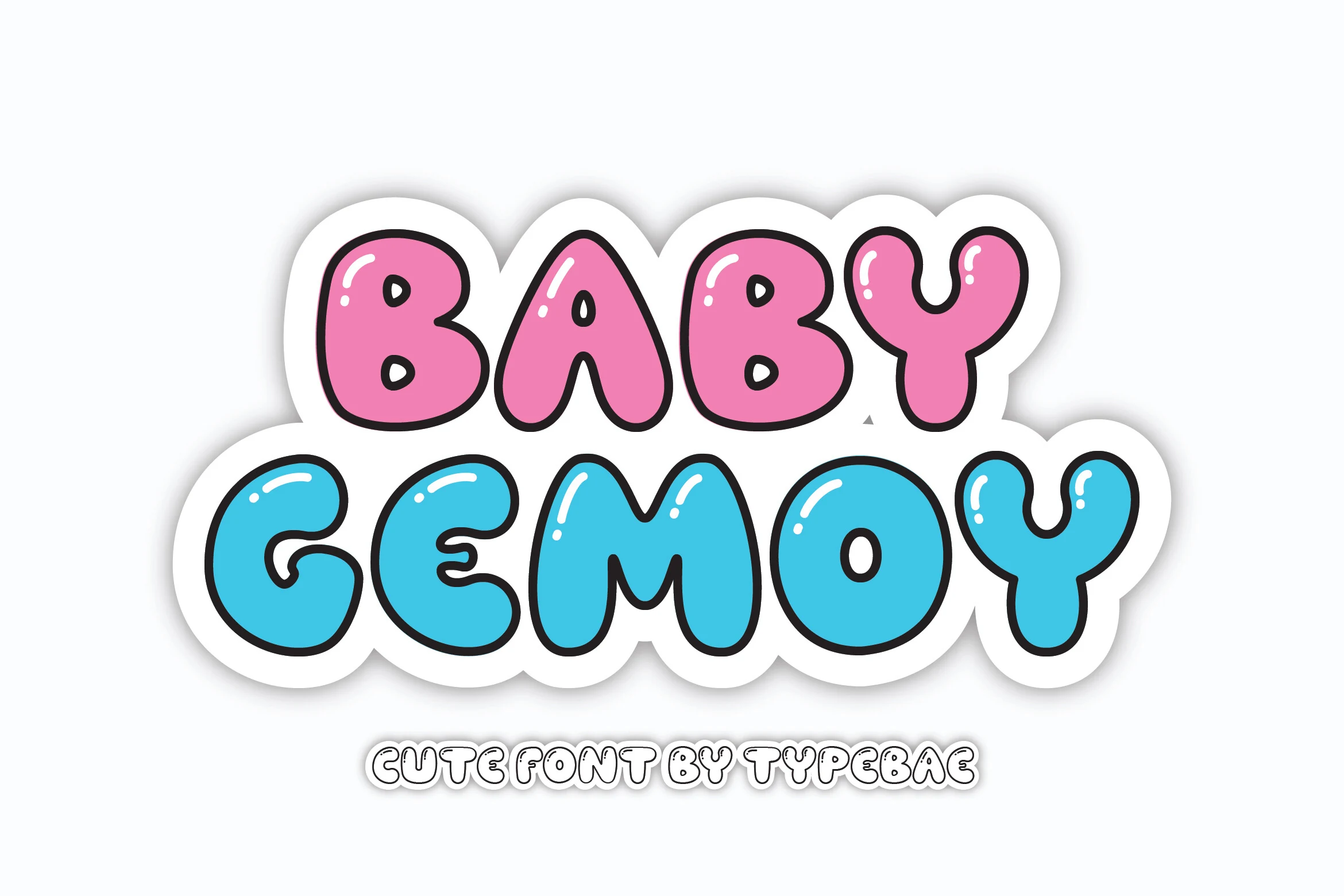
Best For: playful designs, children’s designs, stickers
Baby Gemoy uses thick, monoline strokes and rounded, enclosed counters to create a soft bubble shape with a friendly cartoon feel. The bold proportions stay clear at display sizes, making it a lively choice among Cute Bubble Fonts for cheerful lettering.
Its prominent surface highlights add dimension to short words and compact phrases, while the six included styles offer room to vary the look. Keep tracking slightly open and use strong background contrast, since the heavy forms lose clarity when reduced too far.
Bubbly Humble Font
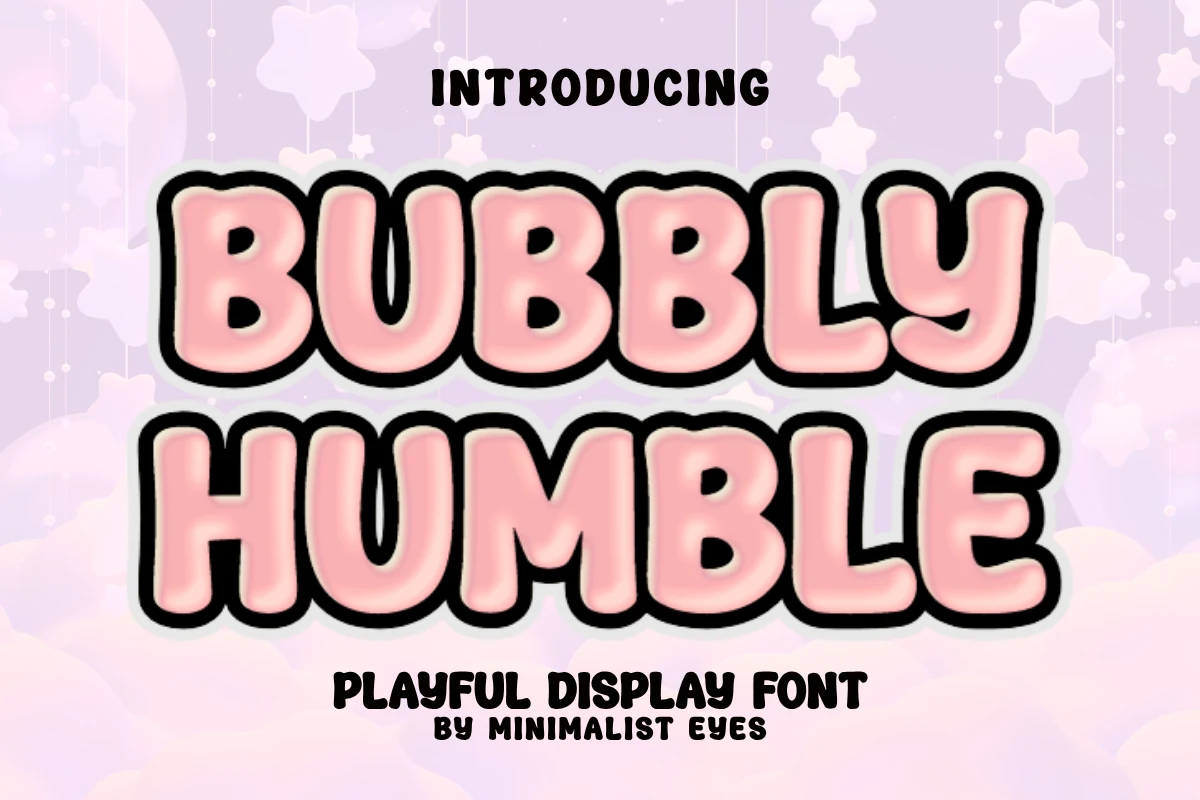
Best For: children’s designs, cute designs, invitations, merch design
Bubbly Humble uses thick, monolinear uppercase letters with inflated, rounded forms and no sharp corners or serifs. Its soft contours and even rhythm give Cute Bubble Fonts a cheerful, youthful presence suited to playful titles and short messages.
The generous shapes stay clear at display sizes, while their puffiness can reduce legibility when scaled down. Keep tracking modest and pair the lettering with lighter supporting text so its bold proportions remain the focus in invitations, labels, and cheerful graphics.
Mori Soda Font
Best For: packaging, stickers, social media graphics, cute designs
Mori Soda is a bold display face built from inflated, pillowy shapes, monoline strokes, and soft rounded terminals. Its high x-height and compact apertures give the lettering a chunky, friendly presence, making it a natural fit for Cute Bubble Fonts and cheerful visual identities.
The disconnected forms stay clear in headlines, stickers, packaging, and social media graphics, though the heavy shapes are better suited to short text than dense copy. Add a little tracking to open up tight counters, and use a lighter supporting weight to create hierarchy around the oversized lettering.
Bubble Cutes Font
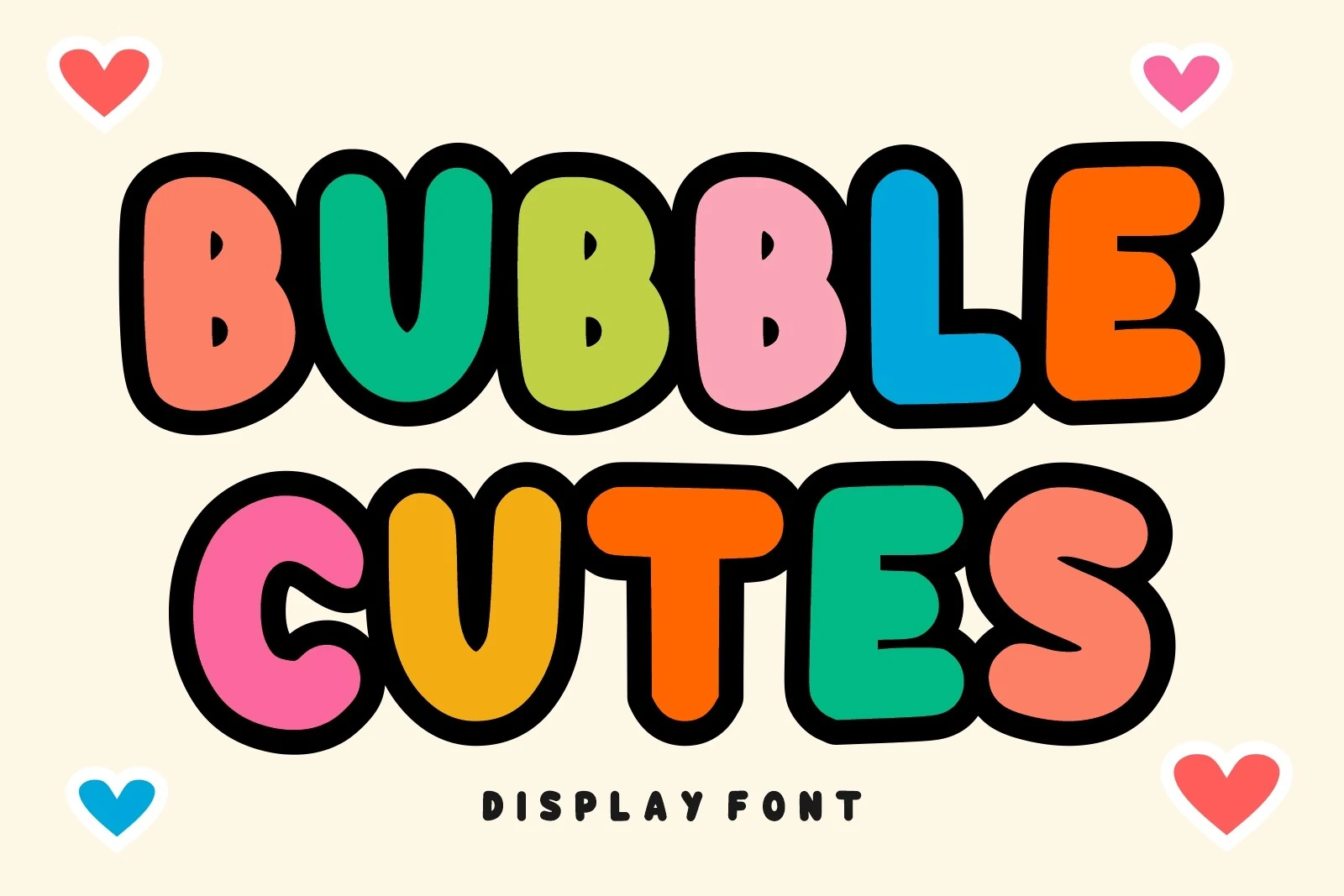
Best For: cute designs, playful designs, children’s designs, stickers
Bubble Cutes turns each character into a soft, rounded shape with wide proportions, thick uniform strokes, and bold outlines. Its blob-like forms and friendly rhythm give Cute Bubble Fonts a playful, youthful presence that reads clearly in large display lettering.
Use it for short titles, labels, or cheerful graphic accents rather than dense copy. Because the rounded letters can feel crowded when set tightly, add a little tracking and keep supporting text lighter and simpler to preserve the title hierarchy.
Mother Earth Font
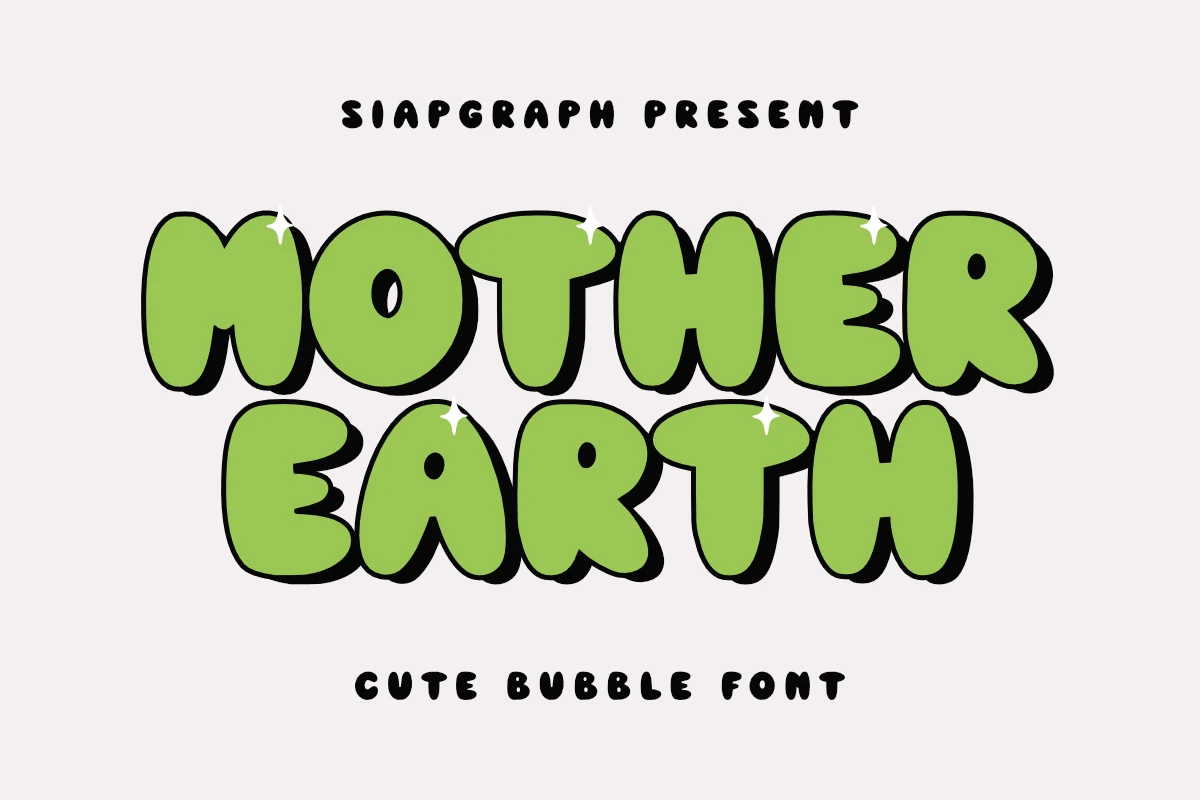
Best For: playful designs, children’s designs, stickers, posters
Mother Earth Font turns rounded, bulbous letterforms into a cheerful display style. Its thick, uniform strokes, tight counters, and soft hand-drawn shapes create the friendly character associated with Cute Bubble Fonts, while the bold outline and shadow add a lively, dimensional finish.
Best suited to short titles rather than dense text, it stays strongest when given generous spacing and enough scale for its compact counters to remain clear. Use it for a prominent headline and keep supporting text lighter and simpler to preserve the bouncy visual hierarchy.
Self Dream Font
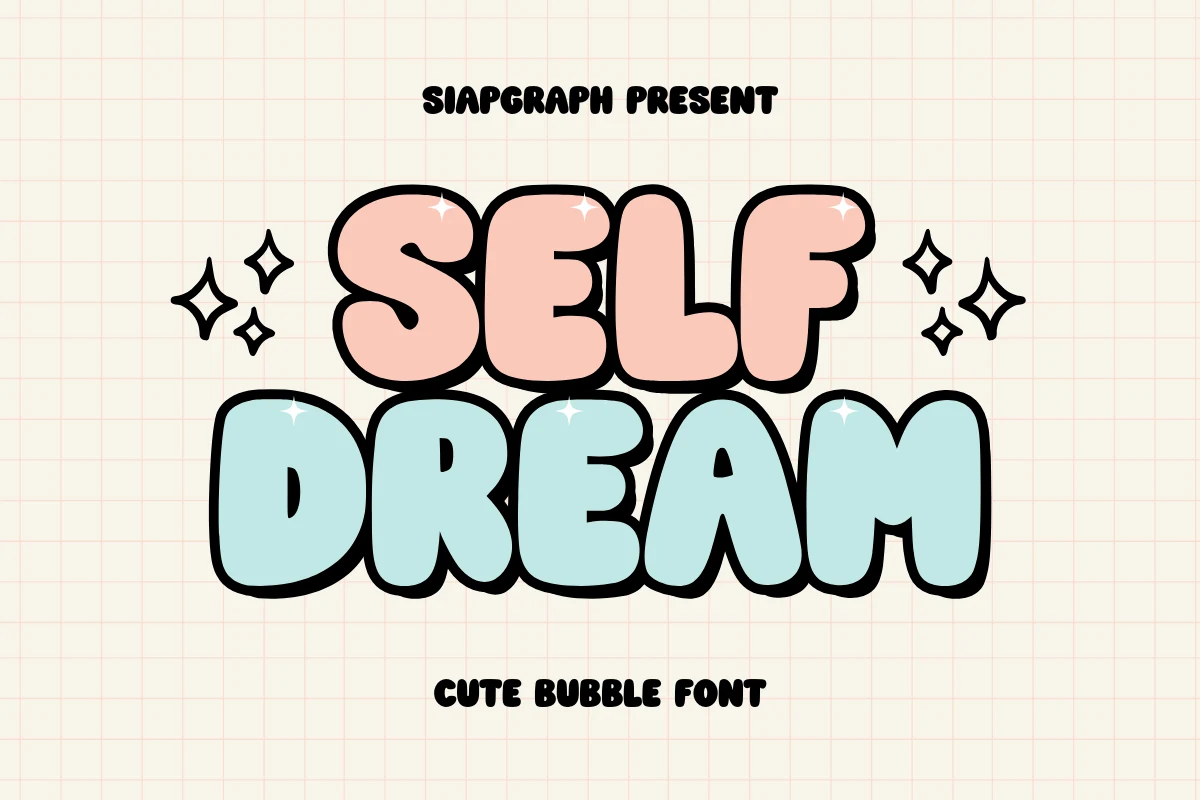
Best For: posters, social media graphics, cute designs, display text
Self Dream brings a soft, youthful presence to Cute Bubble Fonts with bulbous terminals, condensed proportions, and heavy, uniform strokes. Its inflated letterforms are framed by a thick rounded outline, giving headlines, posters, social media graphics, and branding a clear, cheerful impact.
The bold construction stays readable at display sizes, while the compact width helps short phrases fit neatly into badges, labels, and other confined layouts. Keep tracking slightly open when words feel crowded, and use strong background contrast so the dark outline remains crisp.
Booz Font
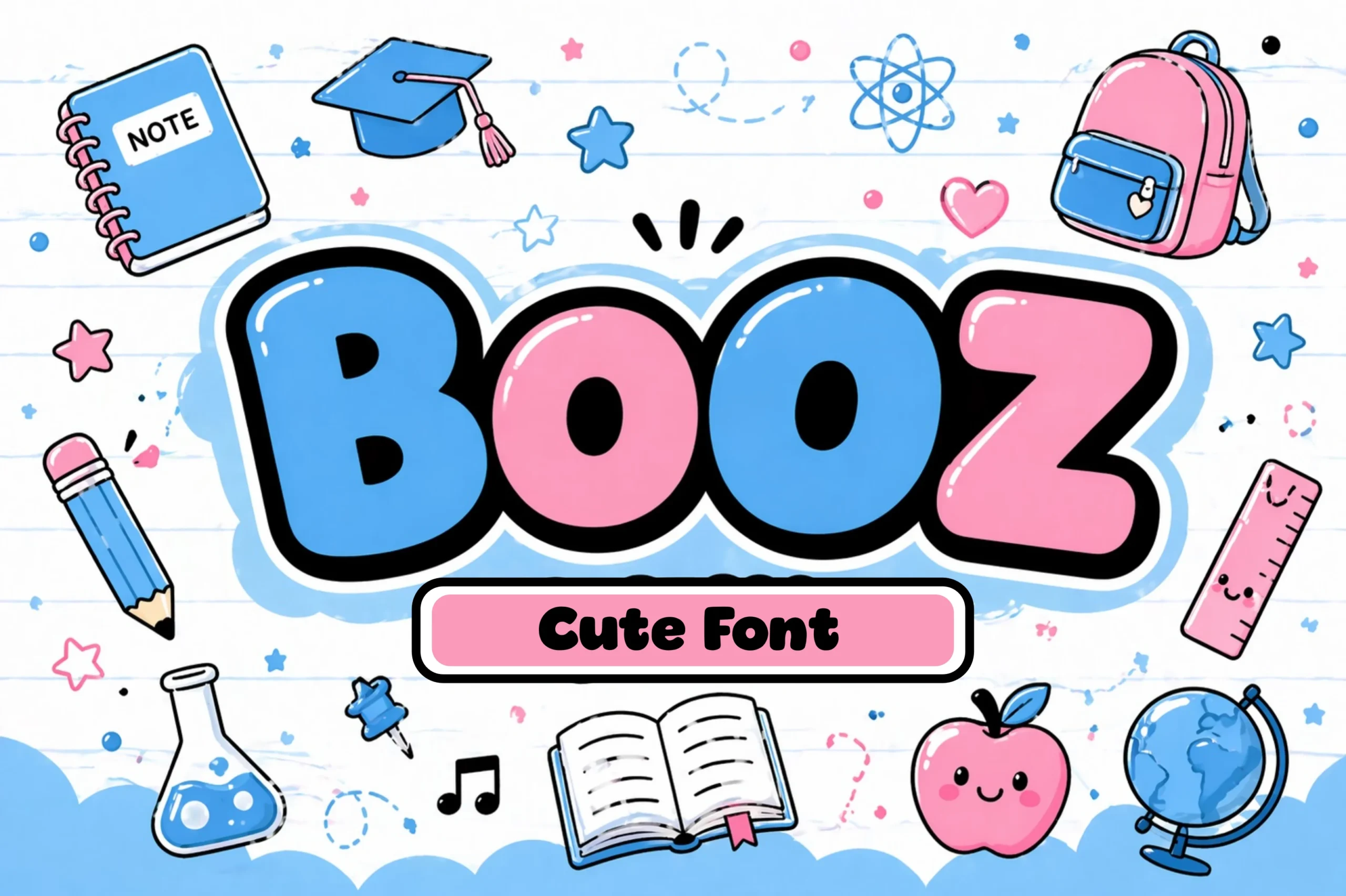
Best For: playful designs, cute designs, children’s designs, stickers
Booz Font turns lettering into a bold, cheerful statement with wide proportions, thick strokes, and rounded, bubble-like terminals. Its upright forms and almost nonexistent stroke contrast create a soft, youthful rhythm that suits Cute Bubble Fonts with a playful school-themed character.
The broad shapes remain clear in large display settings, but their weight can feel crowded in dense or small text. Use generous tracking, short lines, and strong title hierarchy, then pair the lettering with lighter supporting text to keep layouts balanced.
Bubble Craft Font
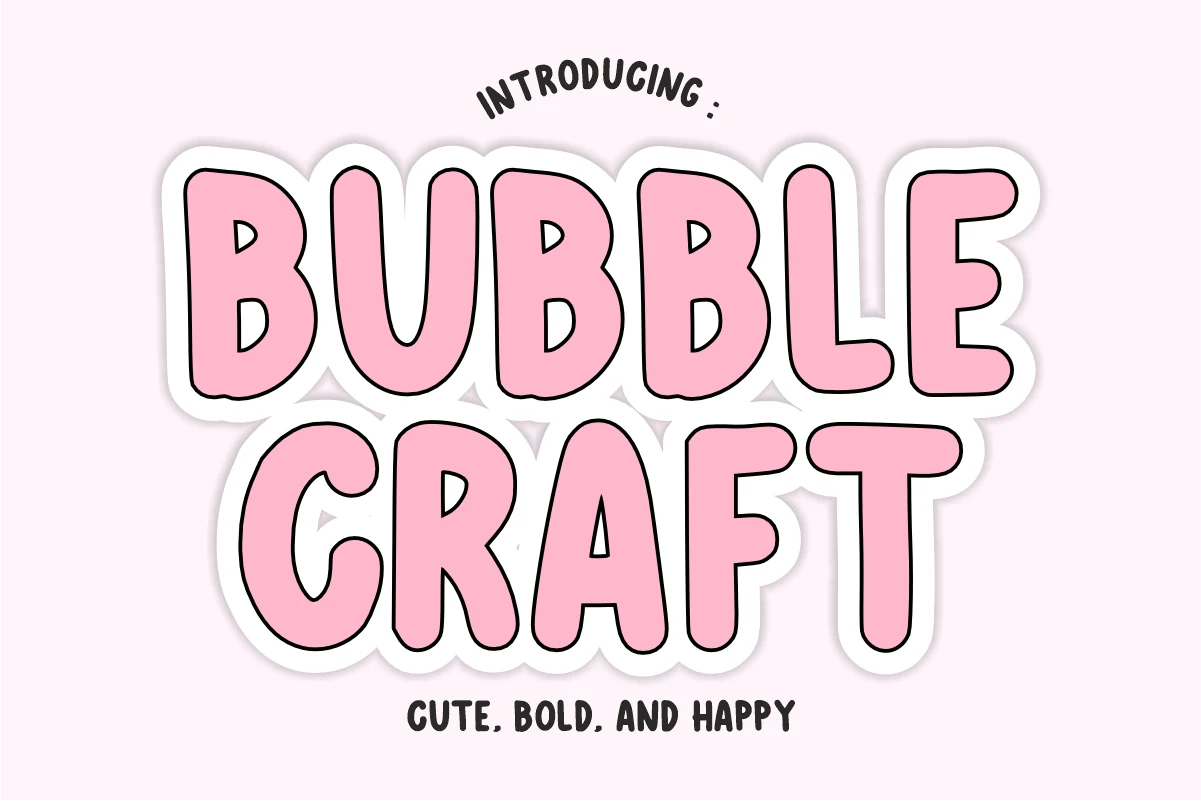
Best For: cute designs, playful designs, posters, stickers
Bubble Craft uses thick, monoline strokes, rounded terminals, and soft curved geometry to create an upright display face with a cheerful hand-drawn feel. Its bold shapes and friendly proportions make it a natural fit for Cute Bubble Fonts collections, especially when a title needs a bright, approachable personality.
The rounded characters stay clear at large sizes, while tight spacing can reduce clarity in compact layouts. Add a little tracking when setting shorter words or scale the lettering generously, then use lighter supporting text to preserve a clear title hierarchy.
Baby Barbie Font
Baby Barbie is a thick, rounded bubble display font with wide, soft-edged characters, monoline strokes, and playful circular cut-outs inside several letters. Its disconnected forms and gentle curves create a friendly, whimsical look suited to Cute Bubble Fonts collections and expressive lettering.
The puffy proportions make it especially effective for short headlines, stickers, and other display work rather than dense paragraphs, where the internal gaps may reduce clarity. Keep tracking slightly open and pair it with lighter supporting text to preserve its shape and title hierarchy.
Sweet Cute Bubble Fonts
Heart details, glossy accents, and whimsical shapes give these fonts an especially affectionate tone, making them well suited to invitations, Valentine projects, children’s designs, and cute merchandise.
Cute Bubble Font
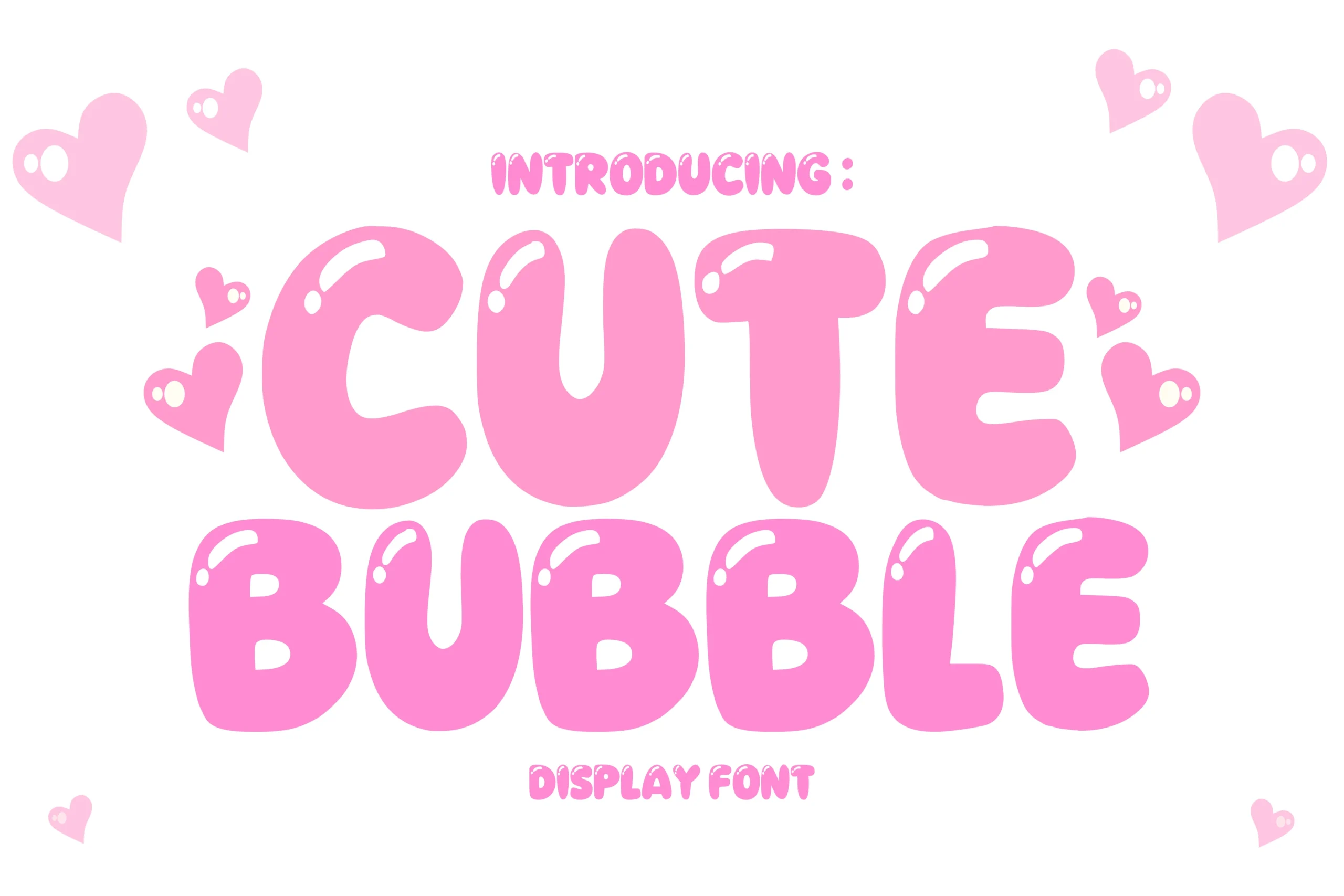
Best For: social media graphics, invitations, stickers, playful designs
Cute Bubble Fonts bring a cheerful, balloon-like presence to lettering through inflated shapes, wide rounded corners, and soft terminals. The bold, uniform strokes keep each character clear, while interior highlight details add a glossy, dimensional effect without relying on elaborate flourishes.
Best suited to display text, this typeface works well for invitations, social media graphics, stickers, and other playful layouts. Keep tracking slightly open and use it at a generous scale, since the heavy forms and highlights can crowd together or lose clarity in small text.
Choco Latte Font
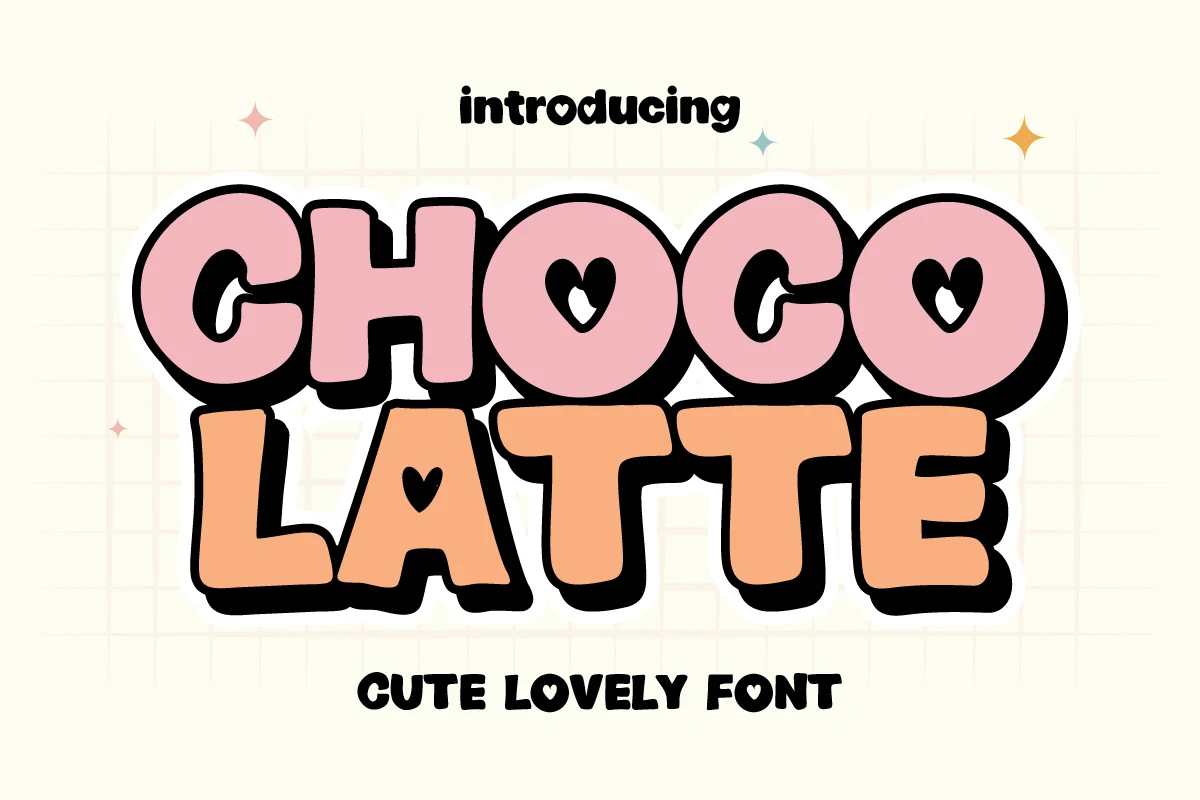
Best For: cute designs, children’s designs, stickers, T-shirts
Choco Latte Font brings a cheerful, cartoon-like character to Cute Bubble Fonts with thick, rounded strokes, compact proportions, and softly inflated terminals. Select letters feature heart-shaped counters, while the bold outline and drop shadow give each word extra visual weight and a sticker-like finish.
Designed for display work, it suits short titles, logos, and eye-catching graphics rather than dense text, since the decorative interiors become harder to read at small sizes. Keep tracking slightly open and pair it with a quieter supporting weight so the rounded forms remain clear and the title hierarchy stays strong.
Little Bubble Font
Best For: children’s designs, playful designs, stickers, T-shirts
Little Bubble Font brings the charm of Cute Bubble Fonts to bold, all-caps lettering. Thick monoline strokes, rounded blob-like forms, and heart-shaped cutouts give each character a cheerful, unified look with strong visual personality.
Its tight spacing creates a compact block, so a little extra tracking can help separate letters in longer titles without losing the playful rhythm. Keep it for large display text, where the heart details remain clear, and pair it with lighter supporting text for contrast.
Super Dream Font
Best For: playful designs, cute designs, posters, stickers
Super Dream is built from thick, upright bubble letters with rounded contours, uniform strokes, and small, minimalist counters. A subtle inner highlight and dimensional shadow give the inflated forms extra depth while keeping the overall mood youthful, approachable, and cheerful.
As a display face, it suits Cute Bubble Fonts projects that rely on bold personality rather than long reading passages. Its tight rhythm benefits from slightly increased tracking, while generous scale and clear background contrast help preserve the letter shapes in headlines, labels, and other short text.
Bubble Boom Font
Best For: cute designs, playful designs, T-shirts, stickers
Bubble Boom is built from ultra-bold, rounded letterforms with soft, bubbly terminals and a steady monoline structure. Glossy highlight details and the heart-shaped counter in the O give these Cute Bubble Fonts a cheerful, cartoon-like personality while keeping the main shapes clear at display size.
Its substantial construction suits vinyl cutting, sublimation, and digital printing, making it a practical choice for stickers, shirts, labels, and other short-form artwork. Keep the lettering large and give it generous spacing; the heavy weight can close up at small sizes, especially in dense layouts.
Sunday Magic Font
Best For: children’s designs, stickers, posters, playful designs
Sunday Magic uses heavy, rounded bubble letters with a bold, even stroke and compact, wide proportions. Soft terminals, disconnected characters, outlined shadows, and small star accents create a cheerful retro mood, while the chunky shapes remain clear at headline scale. It is a lively pick among Cute Bubble Fonts for playful, character-led typography.
Use it for short display text rather than dense copy, and keep tracking slightly open so the puffy forms do not merge. Strong contrast behind the lettering will preserve its outline and shadow, while a lighter supporting text weight can create a clear title hierarchy. It suits children’s designs, stickers, posters, invitations, and other cheerful projects.
Retro Cute Bubble Fonts
Inspired by bold vintage and groovy lettering, these playful fonts add nostalgic character to beach themes, posters, stickers, children’s projects, and colorful retro-style branding.
Sunday Cheers Font
Best For: playful designs, children’s designs, stickers, display text
Sunday Cheers Font brings a soft, inflated look to Cute Bubble Fonts with thick monoline strokes, rounded terminals, and compact counters. Its upright letterforms feel youthful and approachable, while the bold silhouette gives short messages a cheerful retro presence.
Use it for playful designs such as stickers, children’s designs, or lively display text. The heavy weight is clearest at larger sizes, so increase tracking slightly and reserve lighter supporting text for captions or longer wording.
Beach Flower Font
Best For: posters, stickers, playful designs, retro designs
Beach Flower Font packs a playful retro mood into bold, narrow letterforms with rounded bubble terminals and a soft, hand-drawn feel. Its uniform, heavy strokes create clear counters and strong readability, while the disconnected shapes keep each character distinct. As a standout example of Cute Bubble Fonts, it brings cheerful energy to posters, titles, and short phrases.
A deep drop shadow adds dimension and reinforces its display presence without making the lettering feel ornate. Use generous line spacing and moderate tracking so the compressed proportions remain easy to read, and place it against a simple, high-contrast background. It works especially well when supported by a lighter, quieter text style.
Expressive Cute Bubble Fonts
With irregular, hand-drawn, or urban-inspired forms, these energetic styles are designed for attention-grabbing logos, social graphics, posters, stickers, and playful apparel designs.
Quick Brisky Font
Best For: stickers, T-shirts, posters, playful designs
Quick Brisky uses inflated bubble letters with thick, rounded strokes, uneven baselines, and loosely disconnected construction. Dark outlines sharpen the bold pink forms, while small drip-like details reinforce its playful urban graffiti character.
Best treated as display lettering, its distorted shapes and overlapping rhythm work especially well in Cute Bubble Fonts for short, high-impact messages. Keep tracking modest and scale it generously so the irregular contours remain readable; a quieter supporting weight will also help establish hierarchy.
Bubble Tea Font
Best For: logos, social media graphics, children’s designs, playful designs
In the Cute Bubble Fonts category, Bubble Tea Font makes a cheerful display statement with ultra-thick strokes, wide proportions, and soft, rounded terminals. Its irregular handwritten shapes feel youthful and friendly while keeping large headings clear and expressive.
The heavy weight and compact rounded apertures make it better suited to short phrases than dense copy, so use it for a strong title hierarchy and let supporting text carry the detail. Slightly increased tracking can help separate the bulbous forms, especially on busy backgrounds.
Conclusion
Choose the playful group for versatile rounded lettering, the sweet category for charming decorative details, or the retro styles for nostalgic impact. When you want a more distinctive personality, the expressive fonts bring hand-drawn or street-inspired energy to bold display designs.